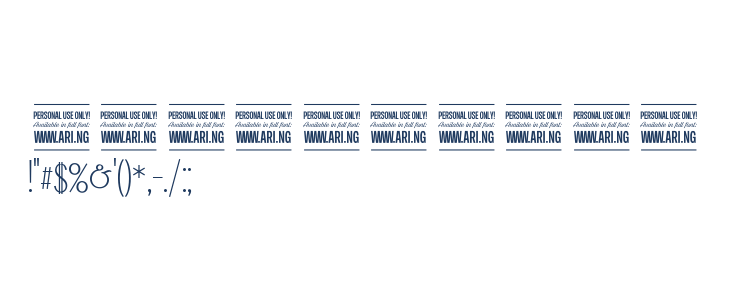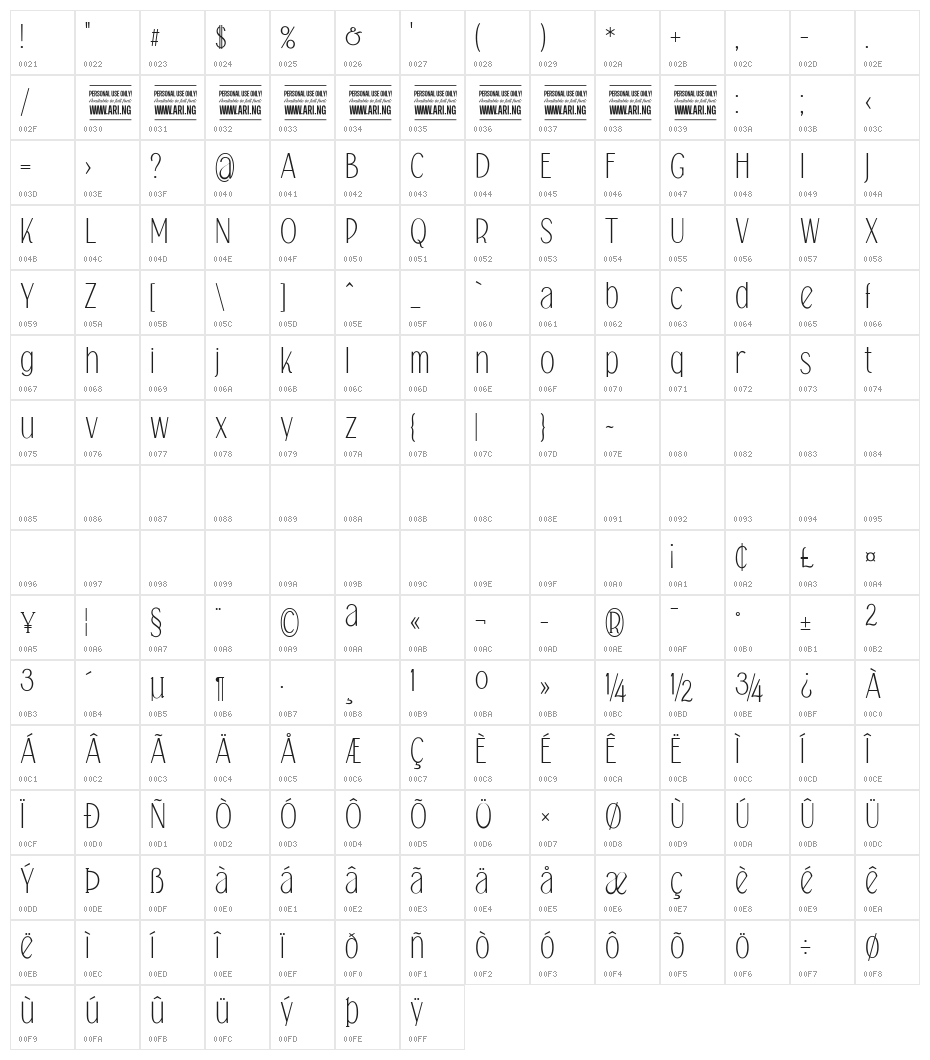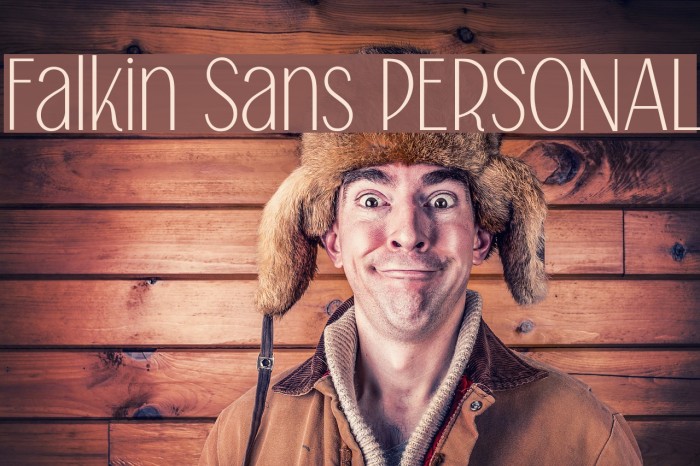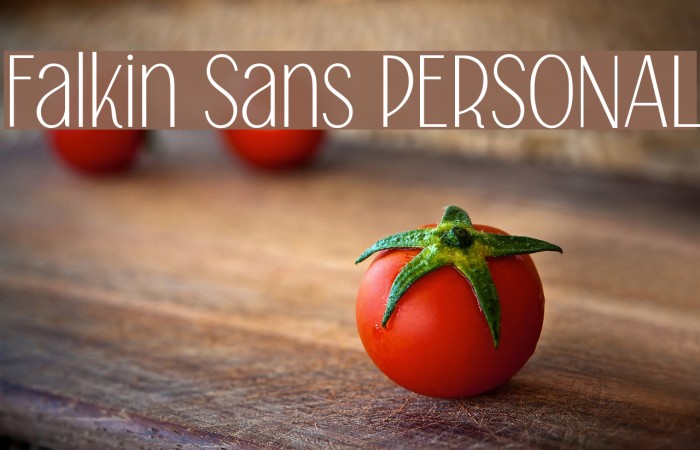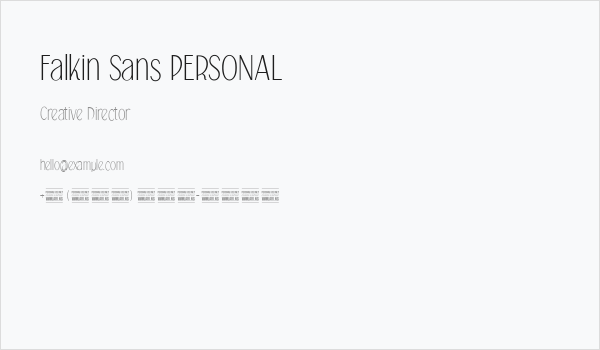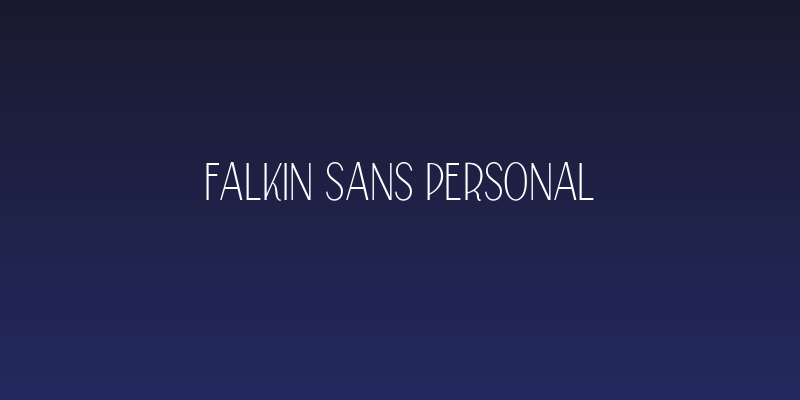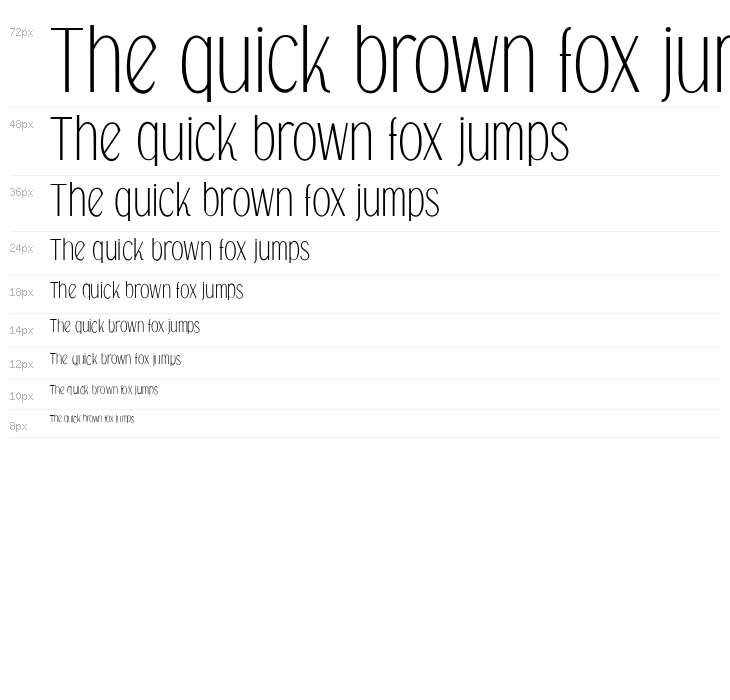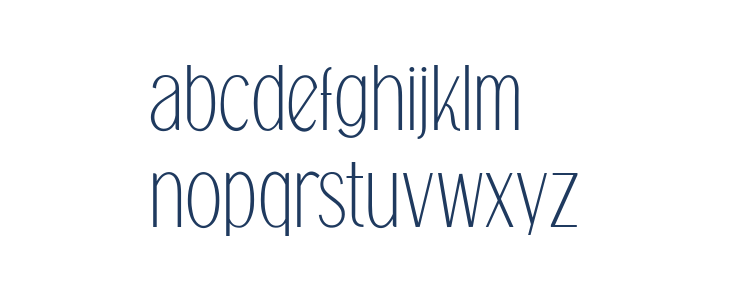
Falkin Sans PERSONAL Font
Falkin Sans PERSONAL Description
This font features a clean and modern sans-serif design with tall, narrow letterforms. The characters are evenly spaced, providing a balanced and legible appearance. Its simplicity and elegance make it suitable for a wide range of applications. The uppercase and lowercase letters maintain a consistent style, with subtle variations that add character without compromising readability. The numerals and special characters are designed to complement the alphabet, ensuring a cohesive look across all text elements.
Proposed ProjectsIdeal for branding, editorial design, web design, and advertising materials.